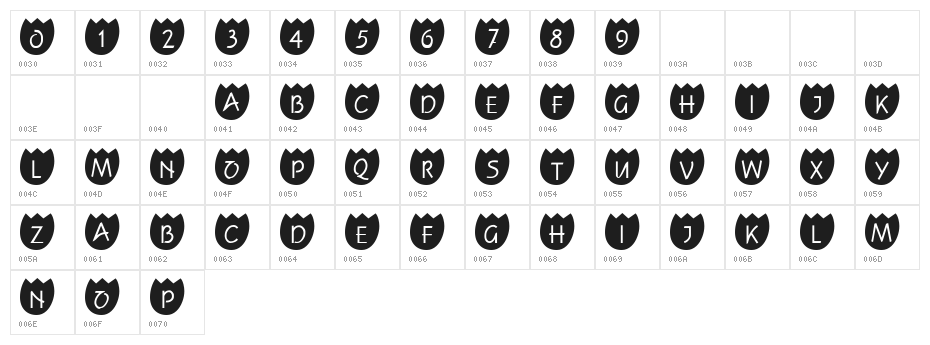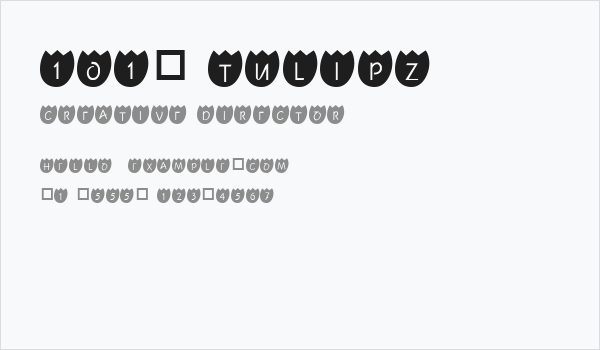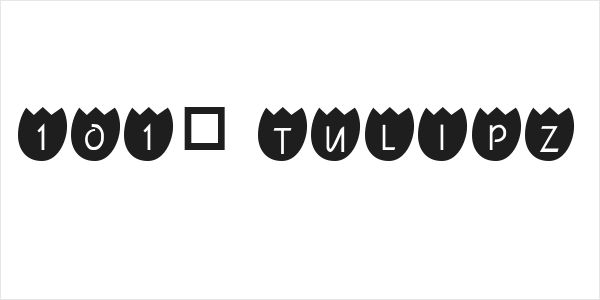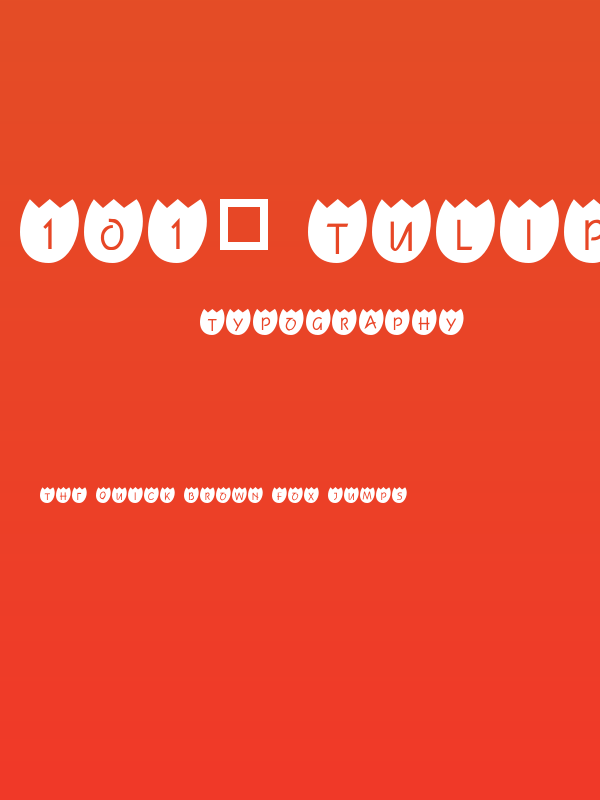
101! TulipZ Font
101! TulipZ Description
This decorative font features characters enclosed within tulip-shaped silhouettes, creating a playful and unique appearance. The letters are bold and slightly whimsical, with a hand-drawn feel that adds charm and personality. The numbers and special characters follow the same tulip motif, ensuring consistency across all glyphs. The font's distinct style makes it stand out, ideal for projects that require a touch of creativity and fun. Its boldness ensures readability while maintaining an artistic flair.
| Use Case | Logos, Headlines, Posters |
| Proposed Projects | Ideal for greeting cards, children's book covers, playful branding, and event invitations. |